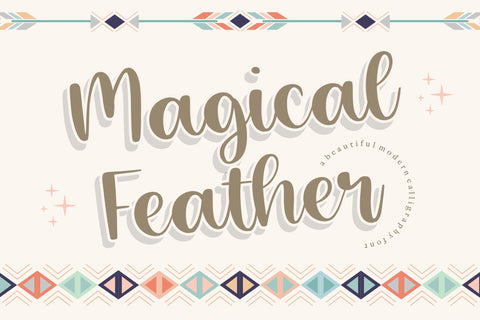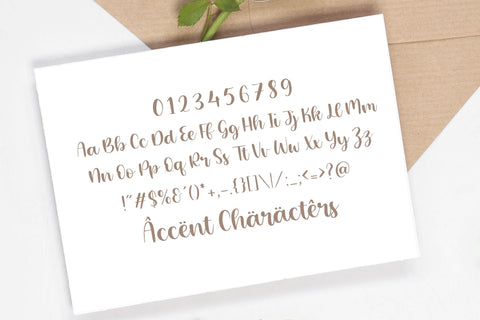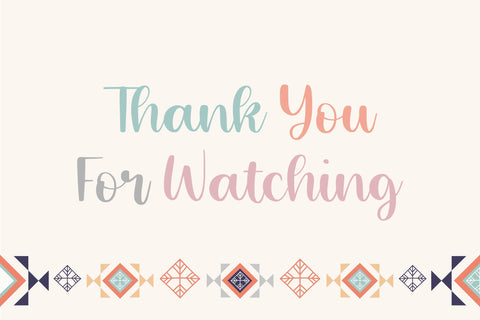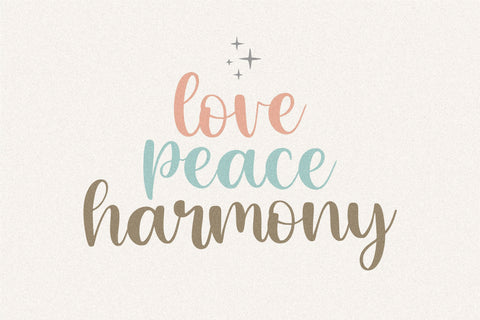
Magical Feather Beautiful Modern Calligraphy Font
Magical Feather is a Beautiful Modern Calligraphy Font.
Magical Feather is perfect for product packaging, branding project, megazine, social media, wedding, or just used to express words above the background.